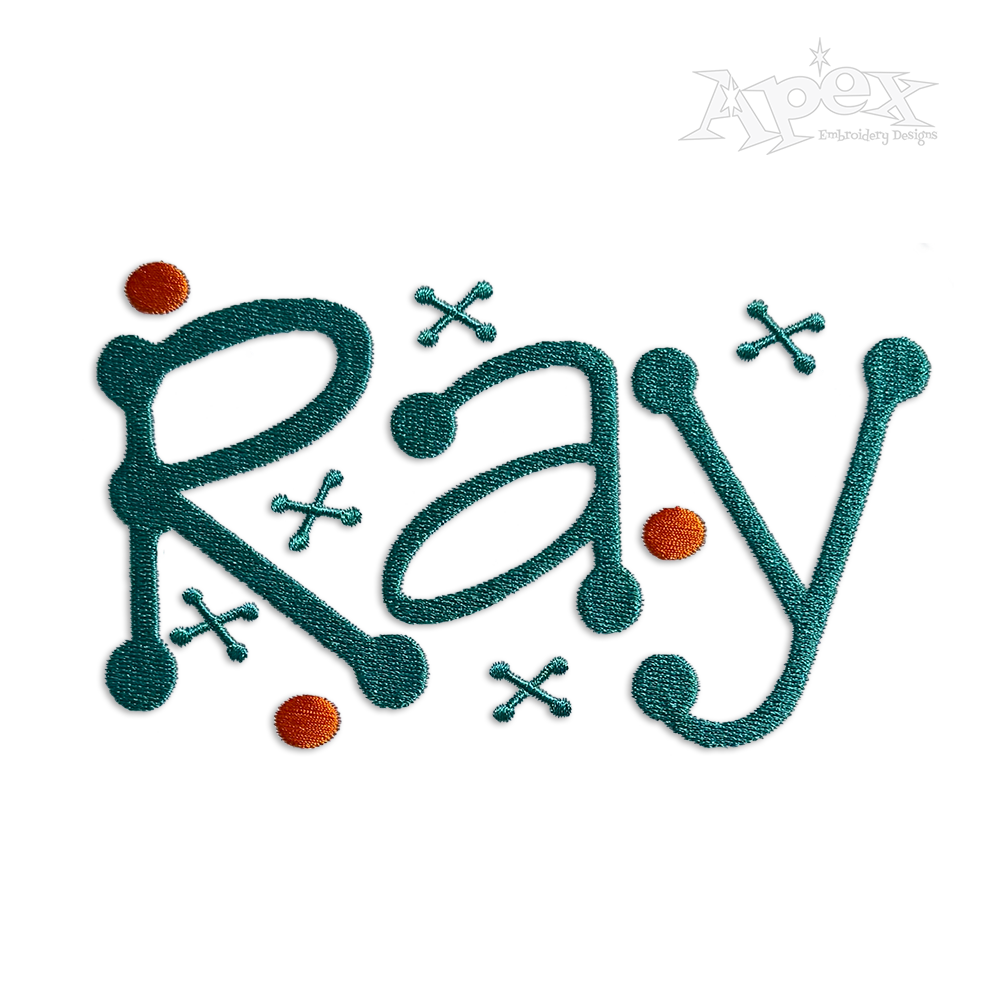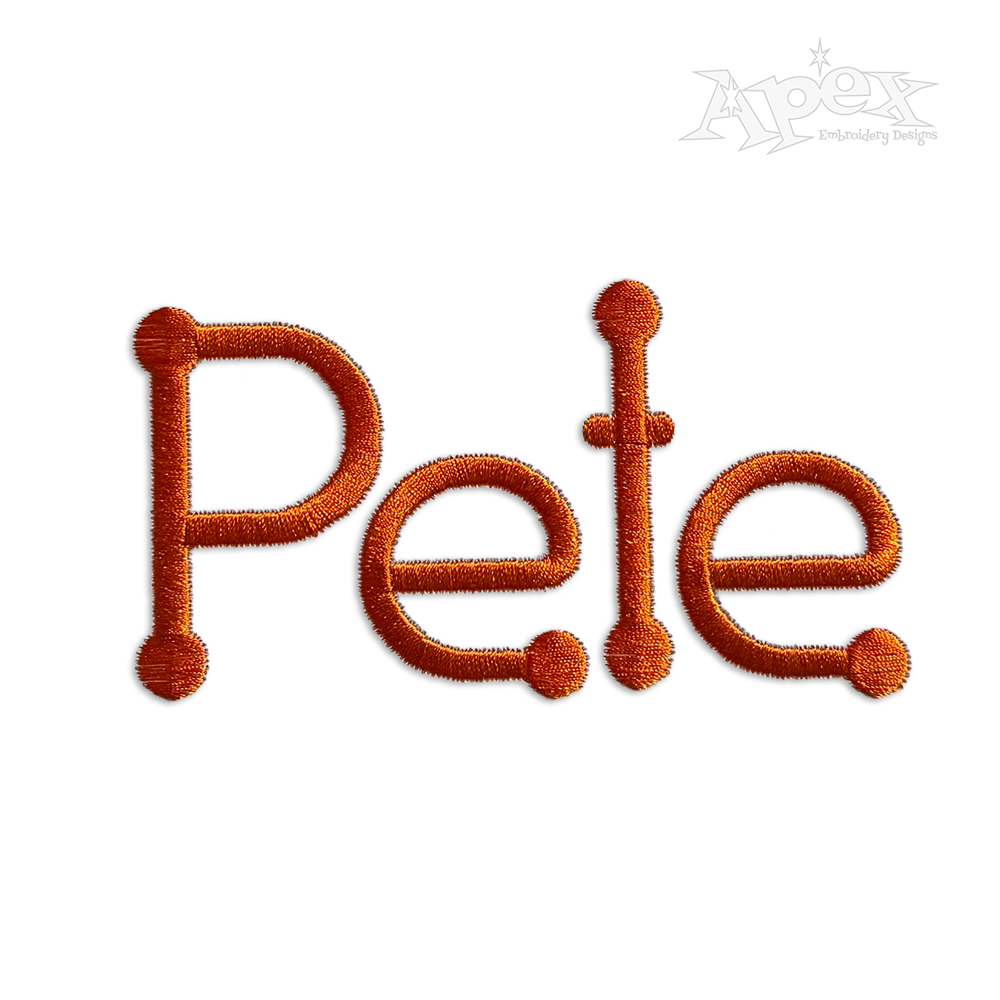
Jaxs Embroidery Font Pack
Infused with rhythm, modern energy, and an unmistakable artisan touch, the Jaxs Embroidery Font Pack brings animated charm to bespoke monograms and personalized textiles. Designed from the needle up, this versatile typography suite bridges playful expression with razor-sharp machine embroidery craftsmanship. Whether you are embellishing a cozy nursery blanket, personalizing everyday school gear, or stitching an artistic accent onto a canvas tote, Jaxs delivers an effortless, handcrafted feel that elevates simple stitching into a vibrant visual melody.
This comprehensive typography collection delivers multiple styling possibilities and digitized scales to accommodate a wide variety of machine embroidery projects:
- 0.5-Inch Set: Precision-scaled satin stitch uppercase and lowercase alphabet, accompanying numbers, and coordinating design accent.
- 1.0-Inch Set: Classic monogram proportion featuring satin stitch uppercase, lowercase, numbers, and decorative motif.
- 2.0-Inch Set: Bold, medium-scale satin stitch letters, lowercase set, matching numbers, and decorative element.
- 3.0-Inch Specialty Display Set: A distinctly styled display interpretation of the Jaxs letterforms, accompanied by an intricately digitized fill-stitch note picture design for dynamic statement embroidery.
Project Ideas for Jaxs Embroidery Font
The lively posture of the Jaxs alphabet lends itself beautifully to creative personalizations across a diverse spectrum of fabric goods:
- Youth Apparel & Accessories: Embellish denim jackets, casual pocket t-shirts, varsity sweatshirts, and school bookbags with cheerful names and monograms.
- Bespoke Music & Studio Gear: Pair the stylized 3-inch alphabet with the included fill-stitch note emblem on instrument gig bags, music folios, and creative studio aprons.
- Heirloom Nursery Linens: Stitch soft, tactile baby blankets, personalized milestone quilts, and embroidered rompers that celebrate a child's name in spirited satin stitch.
- Personalized Everyday Gifting: Create custom canvas lunch bags, personalized travel pouches, and playful monogrammed beach towels for thoughtful, handmade gifts.
- Casual Headwear: Embroider crisp 0.5-inch or 1-inch initials across structured baseball caps, bucket hats, and knit beanies.
Because Jaxs balances legibility with lively character, it adapts effortlessly across various embroidery placements:
- Left Chest & Pocket Tops: Use the 1-inch or 2-inch uppercase letters to create striking chest monograms, or float the full name across pocket plackets.
- Center Front Statements: The architectural 3-inch specialty alphabet makes an unforgettable focal point positioned dead-center on youth hoodies, throw pillows, and canvas totes.
- Cuff & Hemline Accents: The delicate 0.5-inch sizing nestles cleanly along sleeve cuffs, hem tags, or collar wings for subtle, personalized detailing.
- Diagonal Cornering: Anchor dinner napkins, placemats, or picnic blankets by angling the letters along a corner fold, accented by the decorative motifs.
Jaxs Embroidery Font Craft & Letterform Details
Every glyph in the Jaxs collection has been digitized with relentless attention to stitch dynamics and fabric behavior. The 0.5-inch, 1-inch, and 2-inch sets feature columns of smooth, uniform satin stitching engineered with specialized underlay foundations. These underlays prevent fabric sinkage on textured weaves while holding clean, sharp edges on stretchy knits. Curves turn with natural fluidity, and pull compensation has been carefully calibrated so that crossbars and descenders stitch out straight, plump, and lustrous without distortion.
In the distinct 3-inch set, Jaxs explores a bolder, stylized typographic personality. Rather than merely enlarging the smaller scales, this display version was newly conceptualized to balance wide, deliberate contours with the rich textural density of the companion fill-stitch note design. The fill patterning is plotted to catch the light gracefully across the thread plane, ensuring that your final stitchout remains soft to the touch yet visually commanding on every project you bring to life.